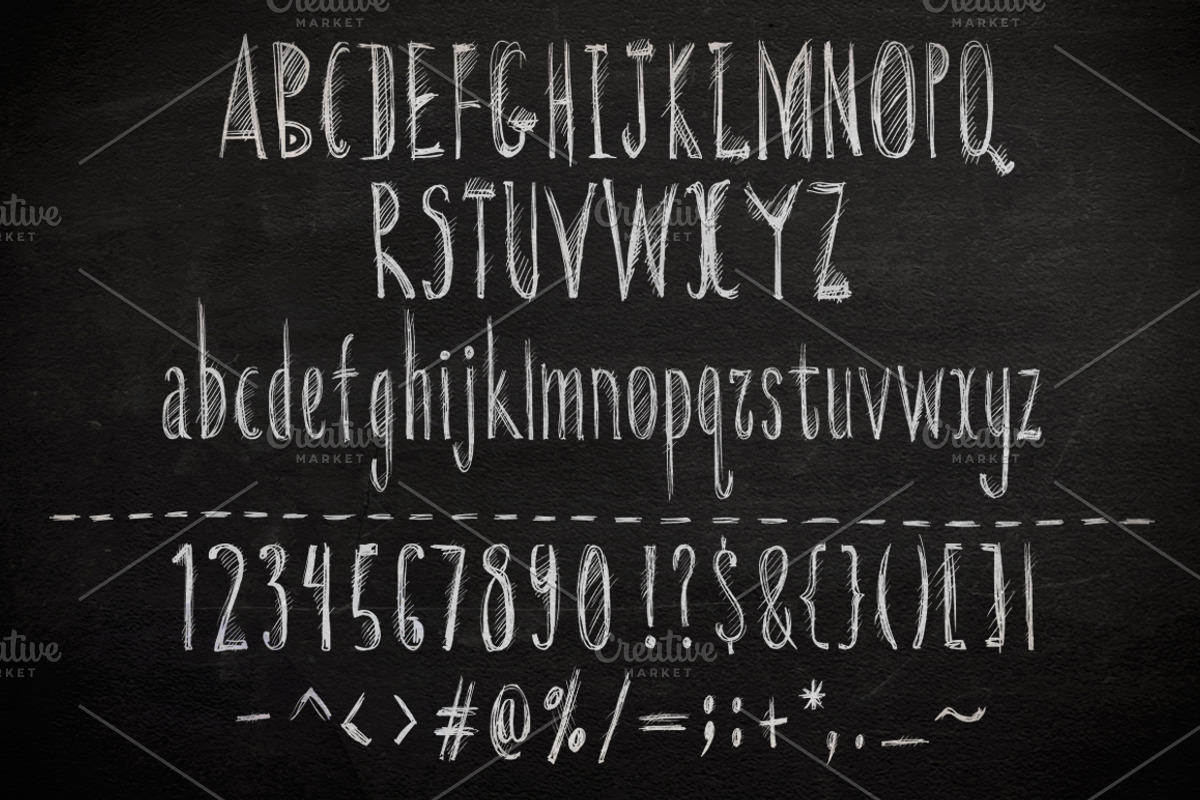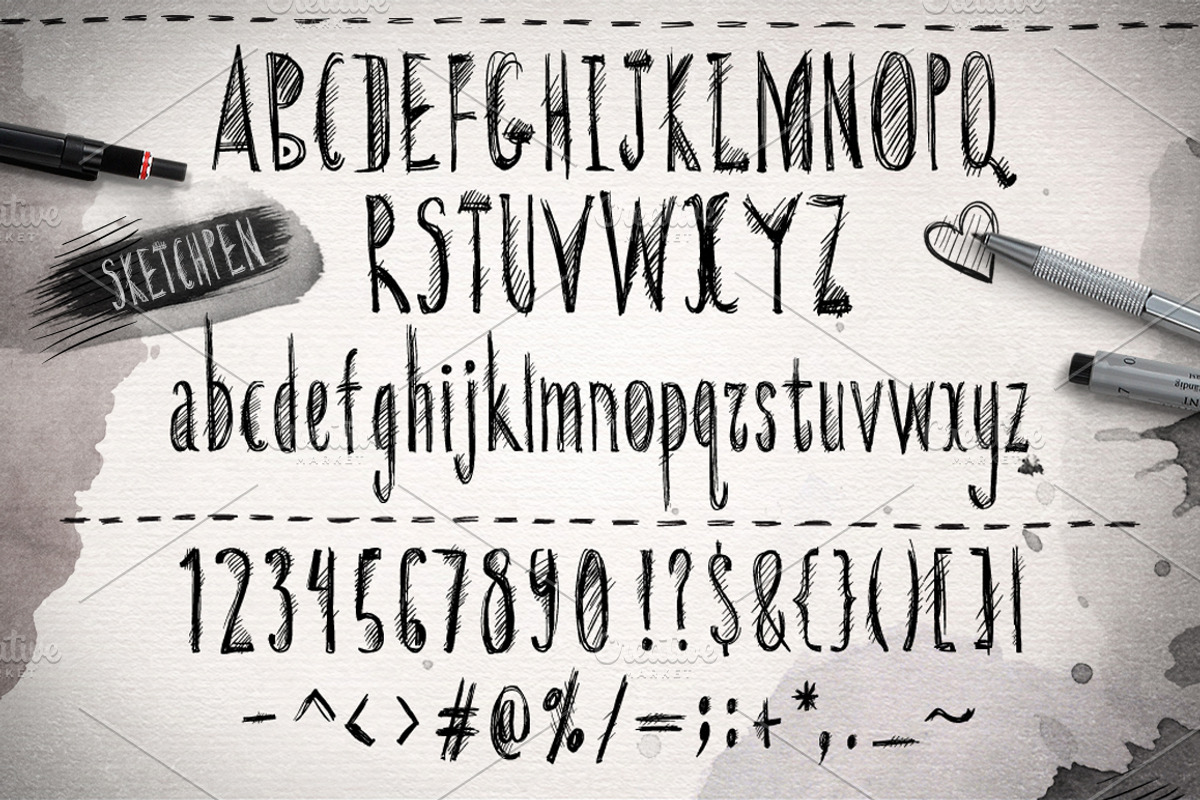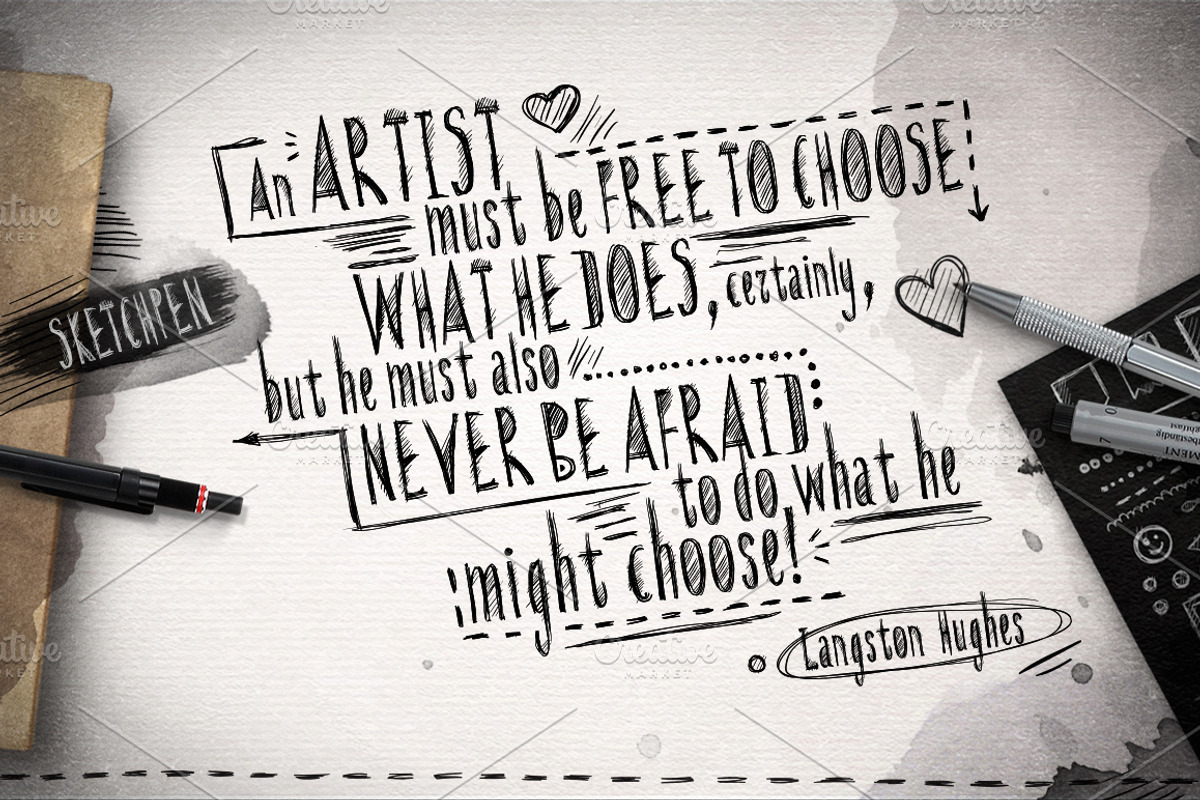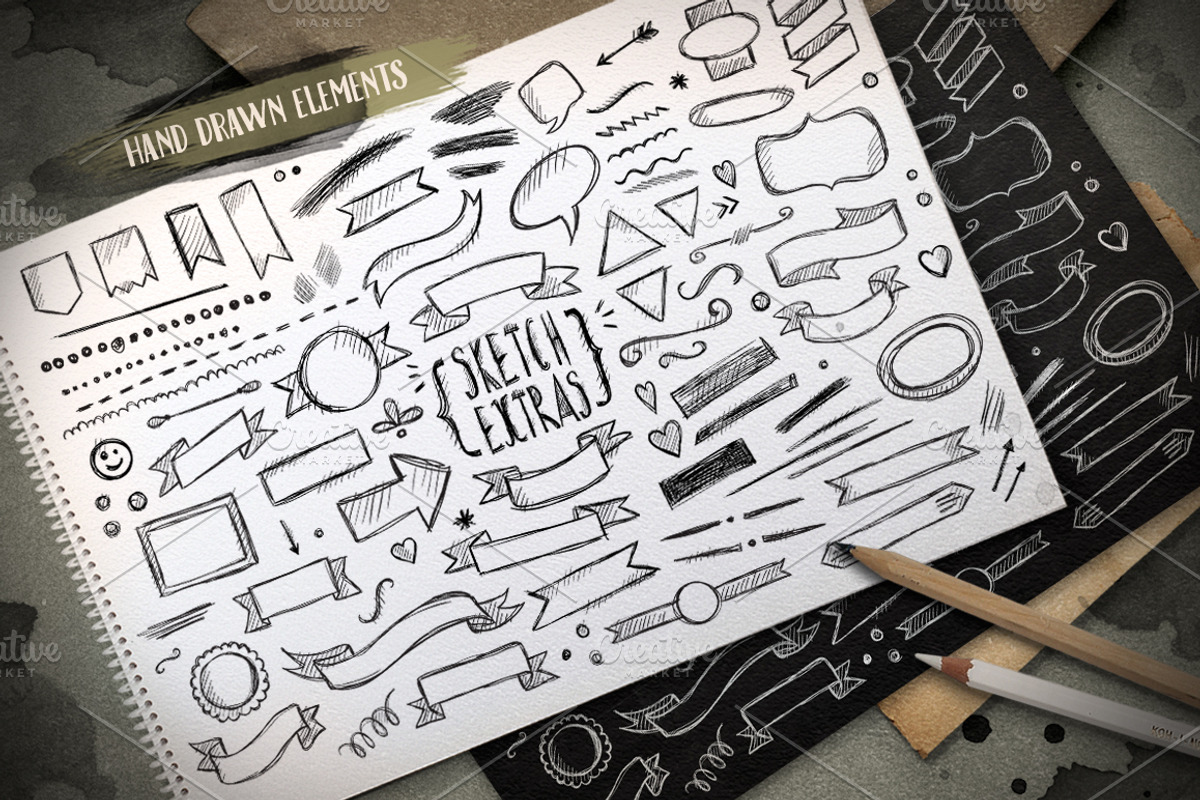
Sketchpen Typeface + Extras
Sketchpen Typeface + Extras by BALABOLKA is a font selected for branding, posters, packaging, typography.
- Also this set includes more than 80 sketch vector extras in the same style as the font to help you build your typographical designs!
Sketchpen Typeface + Extras by BALABOLKA fits naturally into Branding, posters, packaging, typography.